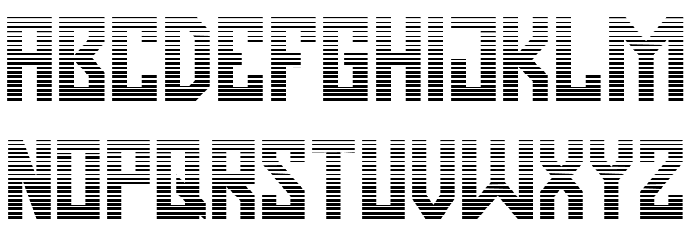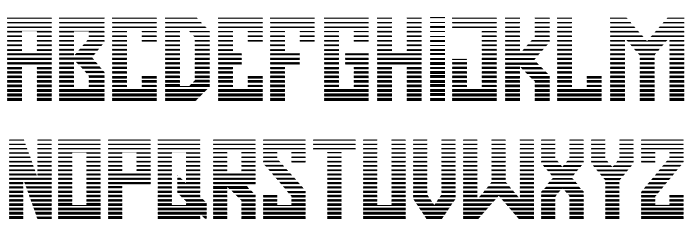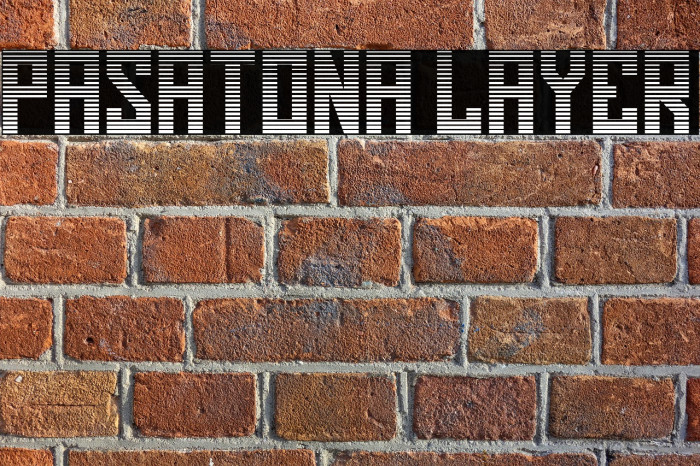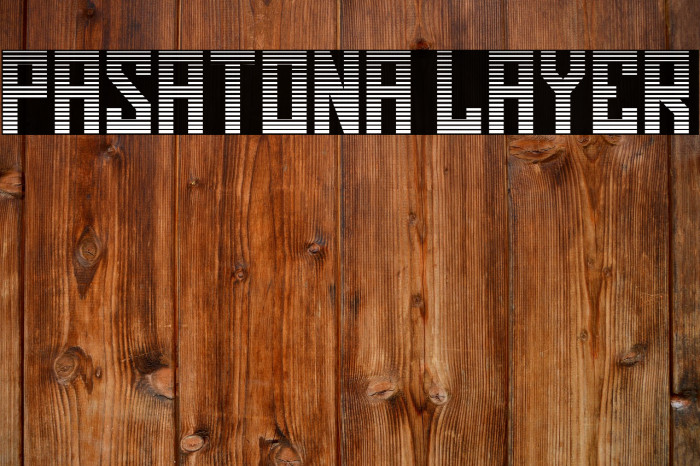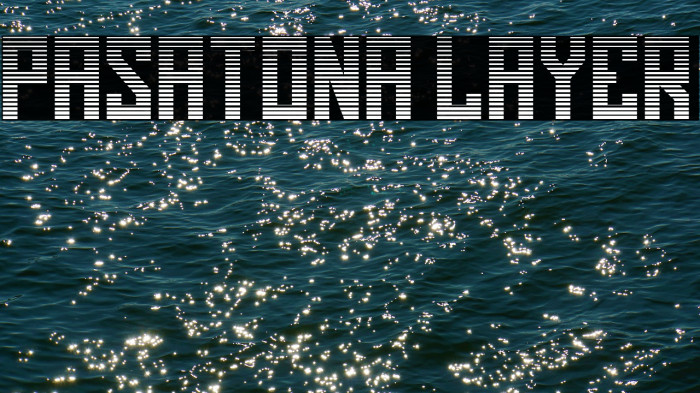
Pasatona Layer Font
This font features a bold, geometric design with a layered, striped pattern that gives it a unique, three-dimensional appearance. Each character is constructed with horizontal lines that create a sense of depth and movement. The uppercase letters are uniform in height, with sharp angles and clean edges, contributing to a modern and futuristic aesthetic. The absence of lowercase letters and numbers suggests a focus on impactful, large-scale use. The font's distinct style makes it ideal for attention-grabbing headlines and display purposes.
A bold, geometric font with a layered, striped design for a modern, futuristic look.
- Proposed Projects: Ideal for branding, posters, album covers, and any project requiring a striking, modern typeface.